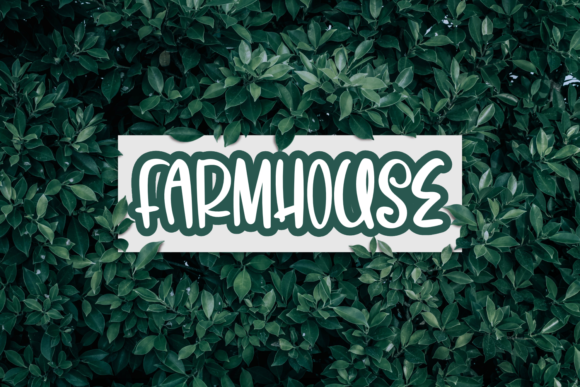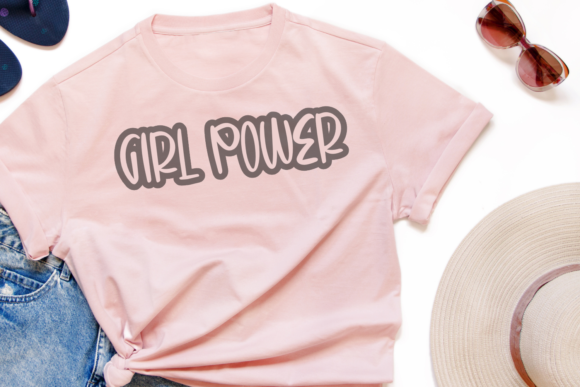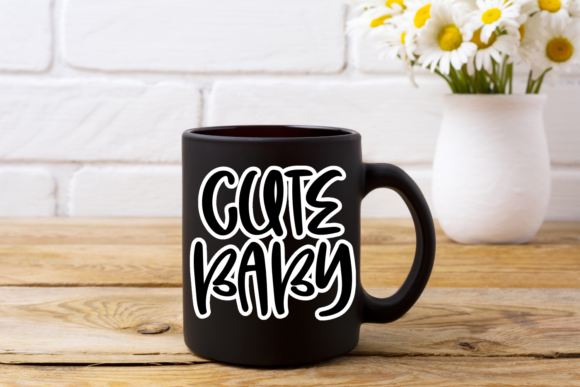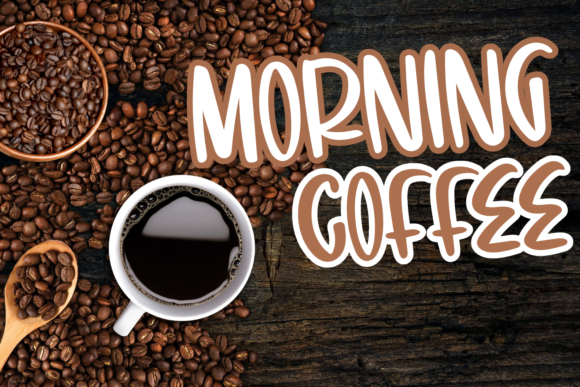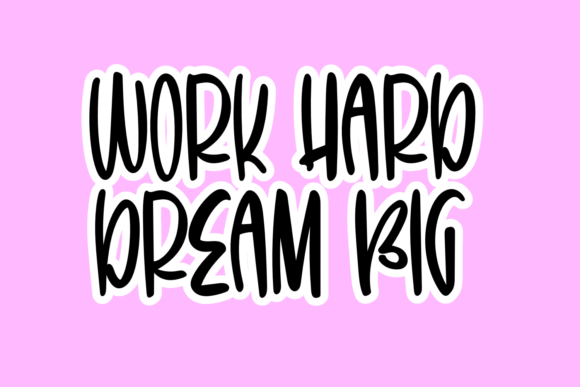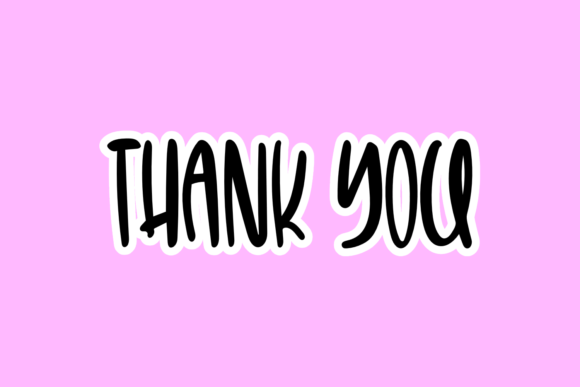
The Butterfly Effect: How a Fresh Handwritten Font Can Transform Your Designs
I’ll never forget the time I was working on a project for a client who wanted a playful, adventurous vibe. I had all the design elements in place – the colors, the graphics, the layout – but something was missing. That’s when I realized I needed the perfect font to tie everything together. After scouring the internet, I stumbled upon the Butterfly font, and it was love at first sight! 💕
The Butterfly font is a fresh and modern handwritten font that’s perfect for adding an adventurous and authentic feel to your designs. In this article, I’ll share my honest review of the font, provide a practical guide on how to use it, and explore similar fonts and alternatives.
An Honest Review of Butterfly Font
- ✨ Fresh and modern handwritten style that’s perfect for designs that need a personal touch
- 💫 Beautifully crafted with a range of OpenType features, glyphs, and stylistic alternates
- 🌈 Versatile and can be used for a variety of design projects, from branding to packaging
While the Butterfly font is amazing, there are a few quirks to be aware of: 🤔
- ⚠️ The font may not be suitable for very formal or traditional designs, as it has a distinctly playful feel
The Butterfly font was designed by a team of typographers who wanted to create a fresh and modern handwritten font that would capture the essence of adventure and playfulness. Inspired by the beauty of nature and the freedom of flight, the font was crafted with a range of OpenType features, glyphs, and stylistic alternates to add personality and depth to any design.
Q: What is the Butterfly font?
A: The Butterfly font is a fresh and modern handwritten font that’s perfect for adding an adventurous and authentic feel to your designs.